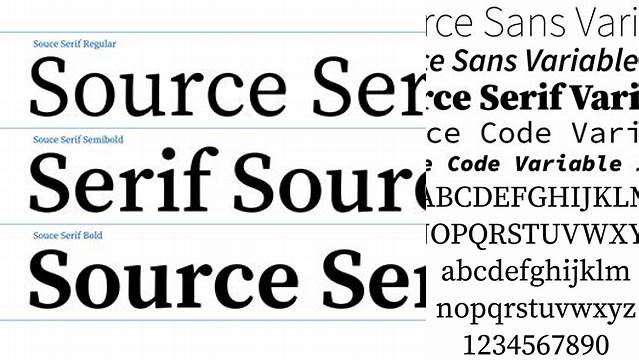
Hey there, font fanatics! Ready to spice up your design game? You're in luck because we're diving headfirst into the amazing world of the Source Serif Variable Font, and guess what? You can get it completely free! Buckle up, because we're about to explore everything you need to know about this awesome font family, from where to snag your Source Serif Variable Font free download to how to make it work its magic on your projects. Let's get started, shall we?
Source Serif Variable Font: What's the Buzz?
Alright, guys, before we jump into the nitty-gritty of the free download, let's talk about why the Source Serif Variable Font is such a big deal. Variable fonts, in general, are the new hotness, allowing you to customize your fonts in ways that were never before possible. Think of it like having a font with infinite styles, all packed into a single file. That's right, no more juggling dozens of different font files for every weight, width, and style you need. This particular font is designed by Frank Grießhammer for Adobe, is a serif font, meaning it has those little decorative strokes (serifs) at the ends of the letter. It's known for its readability and classic aesthetic. This makes it perfect for everything from body text to headlines, ensuring your content looks great across the board. The variable aspect means you can smoothly adjust the weight and other features. This flexibility is what really makes the Source Serif Variable Font a game-changer, giving you unparalleled control over the look and feel of your typography.
It's not just about aesthetics, though. Using a variable font like Source Serif Variable Font can also improve your website's performance. Because you're using fewer font files, your website loads faster, providing a better experience for your users. Plus, the consistent design across different weights and styles keeps your brand's look consistent and professional. Think of the Source Serif Variable Font as your secret weapon for creating stunning visuals that leave a lasting impression. This font family is versatile, elegant, and, as we'll see, easy to get your hands on. You're not just getting a font; you're getting a tool that empowers you to communicate your message in a visually compelling way. And with the option to get a free download, there's no reason not to give it a try! You'll be amazed at the difference it makes.
Diving Deeper: Exploring the Features of Source Serif
Let's talk about what makes the Source Serif Variable Font so special. This isn't just another font; it's a meticulously crafted design that offers a fantastic range of features. First off, the core of Source Serif is its readability. This font is designed to be easy on the eyes, perfect for extended reading, whether you're using it for a book, a website article, or even a long-form document. That's thanks to its balanced proportions and open counters. This means the spaces inside letters like 'e' and 'o' are well-defined, making them easily distinguishable. The Source Serif Variable Font also boasts an impressive range of weights, from light and airy to bold and commanding. This flexibility allows you to use the same font family for everything, from subtle headings to impactful body text. You get to control the weight of your font, adjusting it precisely to create the perfect look for any design. Another great feature is the support for multiple languages. Adobe understood the importance of a truly universal font, so Source Serif has support for a wide array of characters and glyphs, making it usable for diverse projects across the globe. It also offers great hinting, which ensures that the font looks crisp and clear on various screen resolutions. The hinting is fine-tuned to provide the best possible rendering, no matter the device. The variable font format itself is a major advantage. As mentioned, it reduces the number of font files you need. This reduces the load time of websites and overall performance. Variable fonts make it easier to maintain consistency throughout your designs. The ability to fine-tune the weight and style in a single file means less complexity in managing your fonts, leading to a more streamlined workflow. This is why the Source Serif Variable Font is used by so many.
Understanding Variable Fonts: A Quick Primer
So, what exactly are variable fonts? Let's break it down, guys. Traditional fonts come as separate files for each style and weight: regular, bold, italic, etc. Each of these files has to be downloaded, which can slow down your website and make file management a hassle. Variable fonts change the game. They combine multiple styles into a single file. Imagine a slider that lets you adjust features like weight, width, and even slant. This means you get a huge range of options without needing dozens of different font files. Variable fonts use 'axes' to define the different variations available. Think of these axes as the different dimensions you can adjust. The most common axis is weight (from light to bold), but others can include width, slant, and even optical size. The benefit? Huge. They reduce file size and improve performance, providing a smoother user experience. They offer design flexibility. With a single file, you can create a whole range of different looks. And they also help with consistency because you're using the same font file. Variable fonts are a modern, efficient, and powerful way to work with typography. They're the future of font design, and now, with the Source Serif Variable Font free download, you can experience it yourself! Get ready to unlock a whole new level of control and creativity in your designs. It's like having a super-powered font at your fingertips.